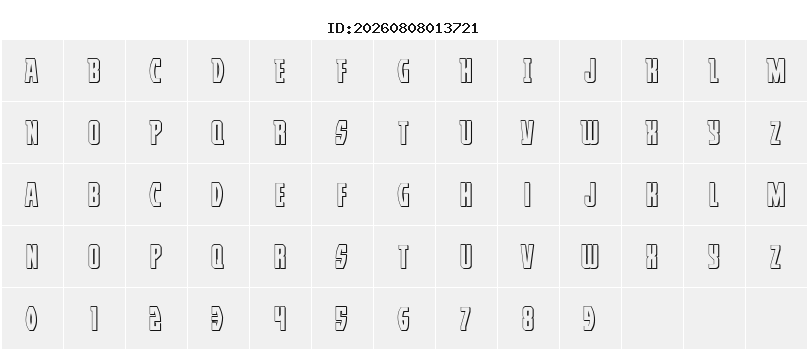
• Font Name: Prowler 3D
About Prowler 3D.ttf
Prowler 3D.ttf is a modern, elegant sans-serif font designed for ultimate readability and visual harmony. Perfect for branding, headlines, web design, and print materials.